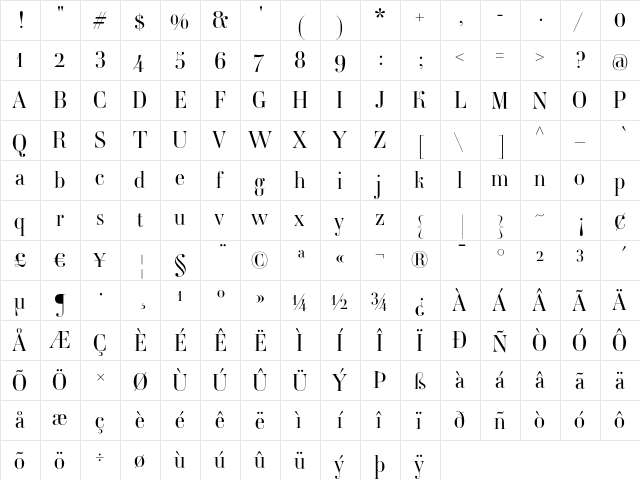
Ambroise Light
Design Context for Ambroise Typeface
Ambroise is a composed and adaptable typeface that performs quietly and consistently across a wide range of design contexts. The delicate stroke weight brings airiness and refinement to layouts.